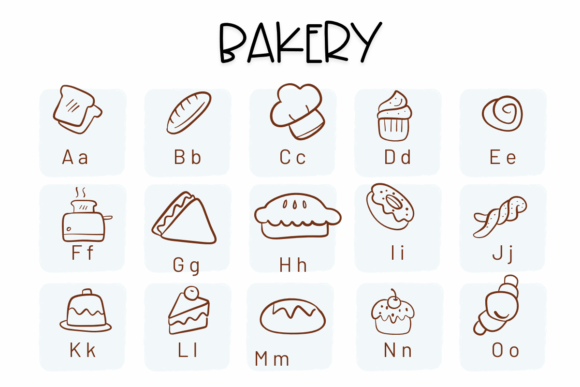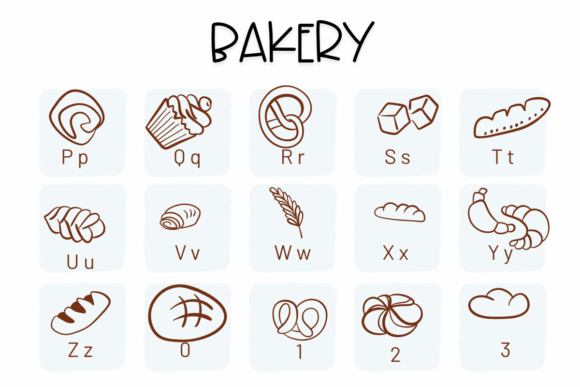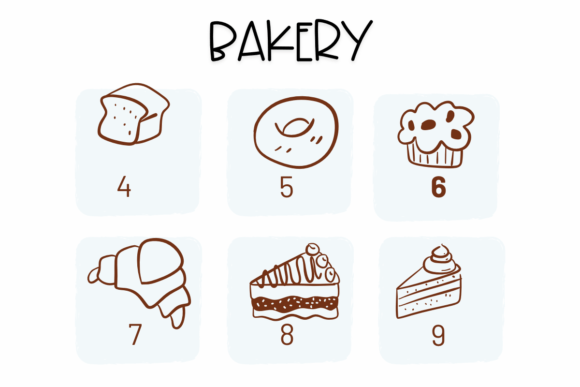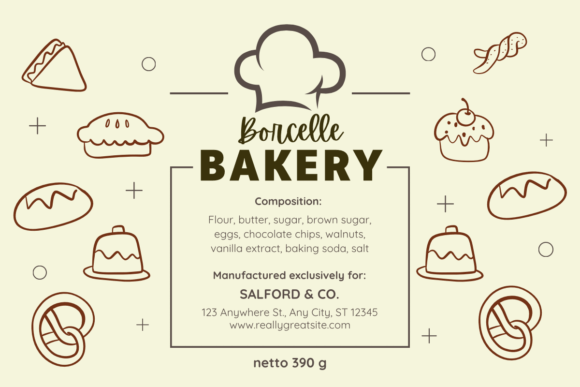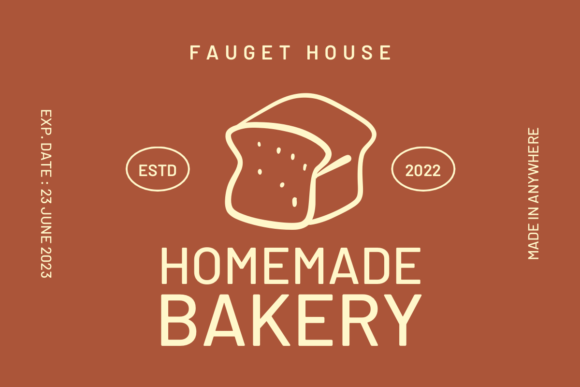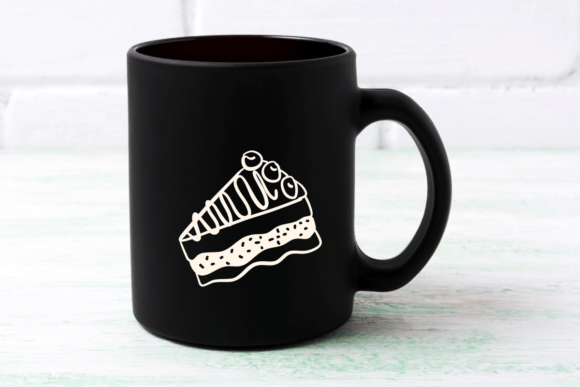
Bakery Font: The Sweetest Way to Add Whimsy to Your Designs
Are you looking for a font that can add a dash of fun and playfulness to your designs? Look no further than the Bakery font! This delightful dingbat font features a variety of pastries, each character a unique illustration of delicious baked goods like cakes, cookies, and pies. In this article, we’ll dive into the world of Bakery font, exploring its features, uses, and benefits for designers and crafters.
What is Bakery Font?
Bakery font is a type of dingbat font, which means it’s composed of illustrations rather than traditional letterforms. Each character in the font is a carefully crafted illustration of a different type of baked good, from classic cakes and cupcakes to sweet treats like donuts and ice cream cones. The result is a font that’s equal parts fun, playful, and mouthwatering.
Features of Bakery Font
So, what makes Bakery font so special? Here are just a few of its key features:
- Unique illustrations: Each character in the Bakery font is a one-of-a-kind illustration, ensuring that your designs will stand out from the crowd.
- Variety of pastries: With a wide range of baked goods to choose from, you’re sure to find the perfect illustration for your project.
- Playful and whimsical: Bakery font is designed to add a touch of fun and whimsy to your designs, making it perfect for projects that need a bit of personality.
- Easy to use: Despite its unique illustrations, Bakery font is easy to use and can be incorporated into a wide range of design projects.
Uses for Bakery Font
So, what can you use Bakery font for? The possibilities are endless! Here are a few ideas to get you started:
- Posters and flyers: Add a touch of whimsy to your posters and flyers with Bakery font’s playful illustrations.
- Invitations and greeting cards: Make your invitations and greeting cards stand out with Bakery font’s unique and eye-catching illustrations.
- Social media graphics: Add a bit of fun and personality to your social media graphics with Bakery font’s playful illustrations.
- Crafting and scrapbooking: Bakery font is perfect for crafters and scrapbookers who want to add a touch of whimsy to their projects.
So, what are the benefits of using Bakery font for designers and crafters? Here are a few:
- Adds personality to designs: Bakery font’s playful illustrations can add a much-needed dash of personality to your designs.
- Easy to use: Despite its unique illustrations, Bakery font is easy to use and can be incorporated into a wide range of design projects.
- Versatile: Bakery font can be used for a wide range of projects, from posters and flyers to social media graphics and crafting projects.
- Fun and engaging: Bakery font’s playful illustrations are sure to bring a smile to your face and engage your audience.
Tips for Using Bakery Font
Here are a few tips for using Bakery font in your designs:
- Use it sparingly: While Bakery font is fun and playful, it can be overwhelming if used too much. Use it sparingly to add a touch of whimsy to your designs.
- Pair it with complementary fonts: Pair Bakery font with complementary fonts to create a visually appealing design.
- Experiment with colors: Don’t be afraid to experiment with different colors and textures to add depth and interest to your designs.
In conclusion, Bakery font is a fun and playful dingbat font that’s perfect for adding a touch of whimsy to your designs. With its unique illustrations, variety of pastries, and ease of use, Bakery font is a must-have for designers and crafters looking to add a bit of personality to their projects. Whether you’re creating posters, invitations, or social media graphics, Bakery font is sure to bring a smile to your face and engage your audience.